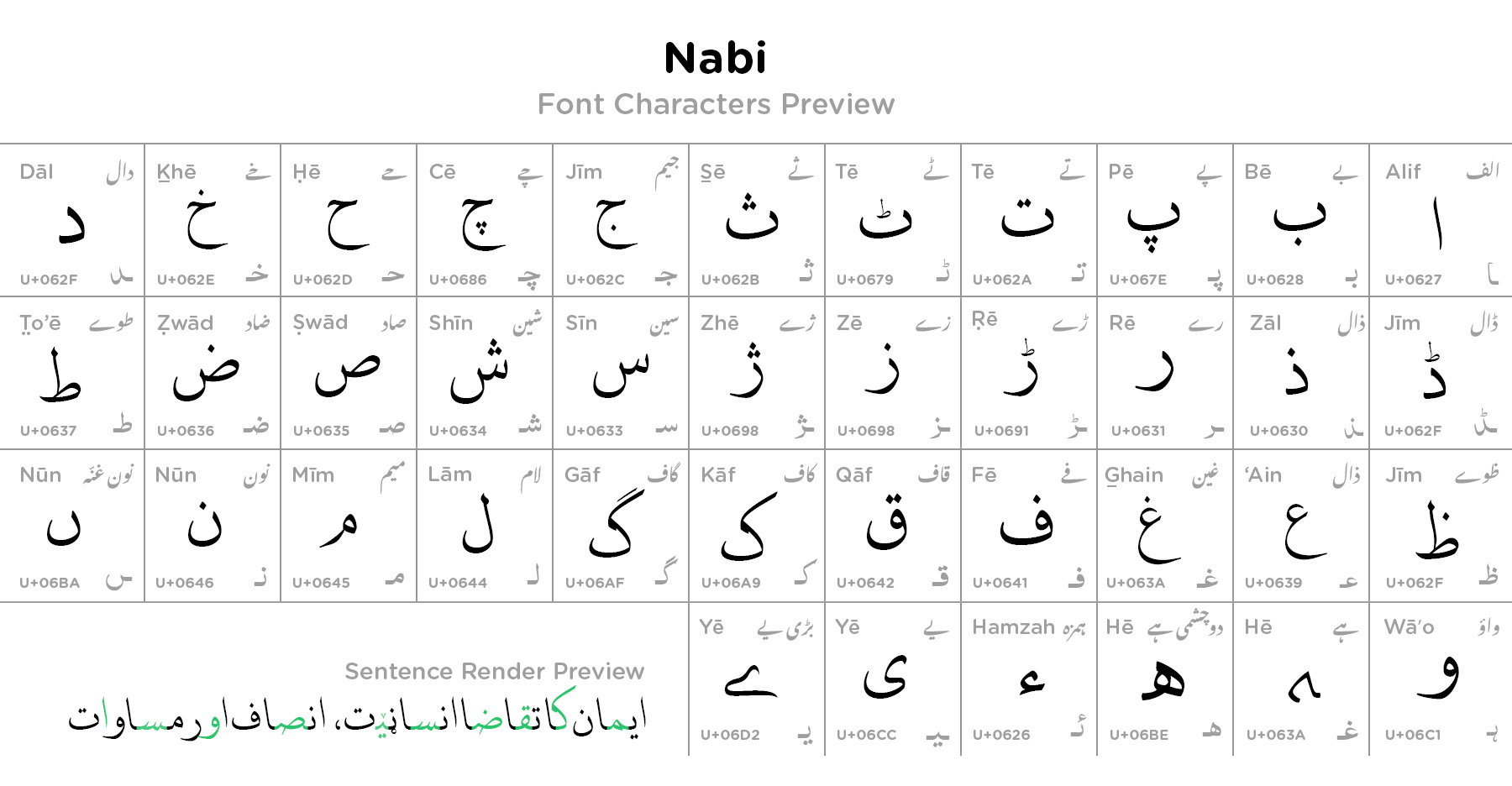
Nabi Font, crafted by designer Hossein Zahedi, stands out for its clean lines and striking contrast strokes. Released in May 2021 by ParsFont and Type Solutions, it offers a minimalist yet elegant touch with its sans-serif style. Inspired by Naskh's script, its design boasts simplicity and clarity. With 1630 characters and 1773 glyphs, the font is compatible with different digital platforms, offering ease of seamless design. Also, the typeface supports multiple languages, including Arabic, Latin, Thai, Cyrillic, Hebrew, and Greek, ensuring a diverse typographic experience. Its strong strokes and variable thickness, reminiscent of Qalam writing, make it ideal for long textual blocks. Whether viewed on screen or in print, Nabi ensures high legibility across all sizes and resolutions.